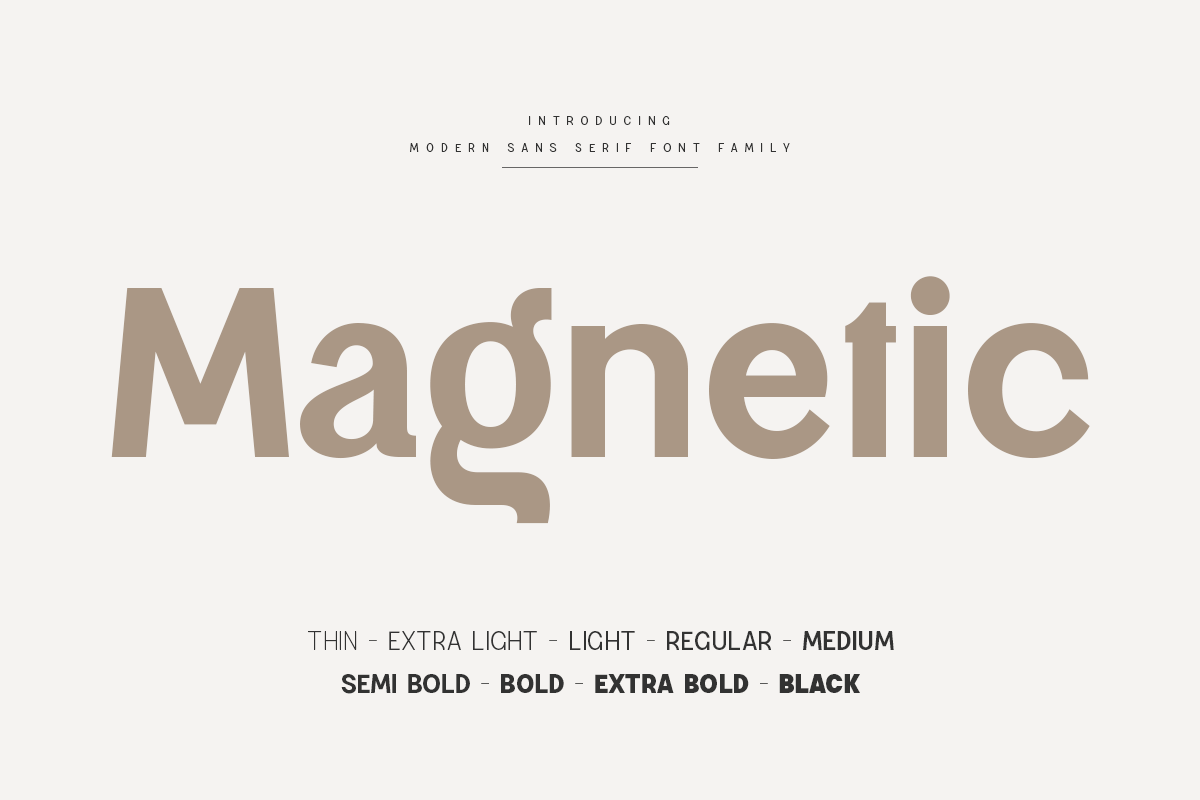
Magnetic – Modern Sans Serif Font
Magnetic is a sans serif font with modern, corporate, elegant, unique and classy-look. This font crafted specials for logo design projects, ready to use on Logo, Branding, Magazine, Social Media, and Many more that needs modern touches.